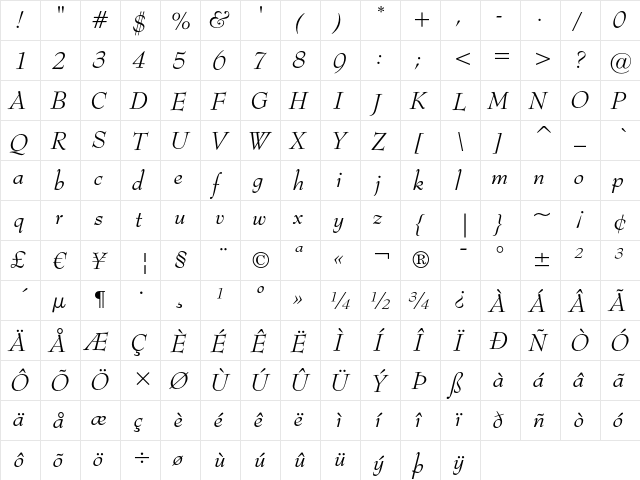
Bernhard Modern Italic
Design Context for Bernhard Modern Typeface
Bernhard Modern is a composed and adaptable typeface that performs quietly and consistently across a wide range of design contexts. Its italic angle brings a sense of urgency and motion to the letterforms.
Pro Tip: Try Bernhard Modern for annotation and caption copy alongside an upright companion — the contrast in angle creates a dynamic but ordered typographic system.